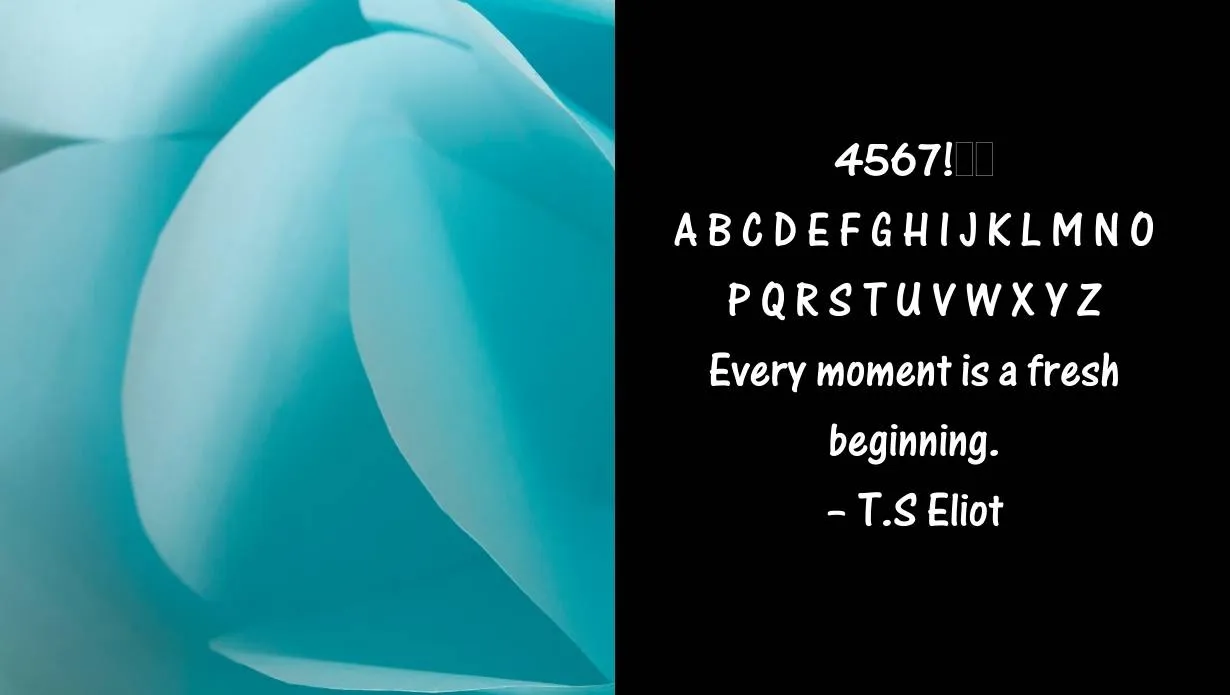
Curious George Font is a unique typeface that is based on the iconic character from the popular children’s book series, and an animated comedy movie. This classy typeface was designed by Monotype Corporation. It belongs to script typeface. This typeface is well specified by the SVG.
This playful font features whimsical letters and fun illustrations that capture the spirit of George himself. Whether you’re designing a greeting card, flyer, or another project, this font is sure to add some fun and personality to your work. Each of its letters is designed with thin and thick strokes. This typeface is best for Adobe. For more classic features you need to use its similar braxton font.
| Name | Curious George Font |
| Designer | Monotype Corporation |